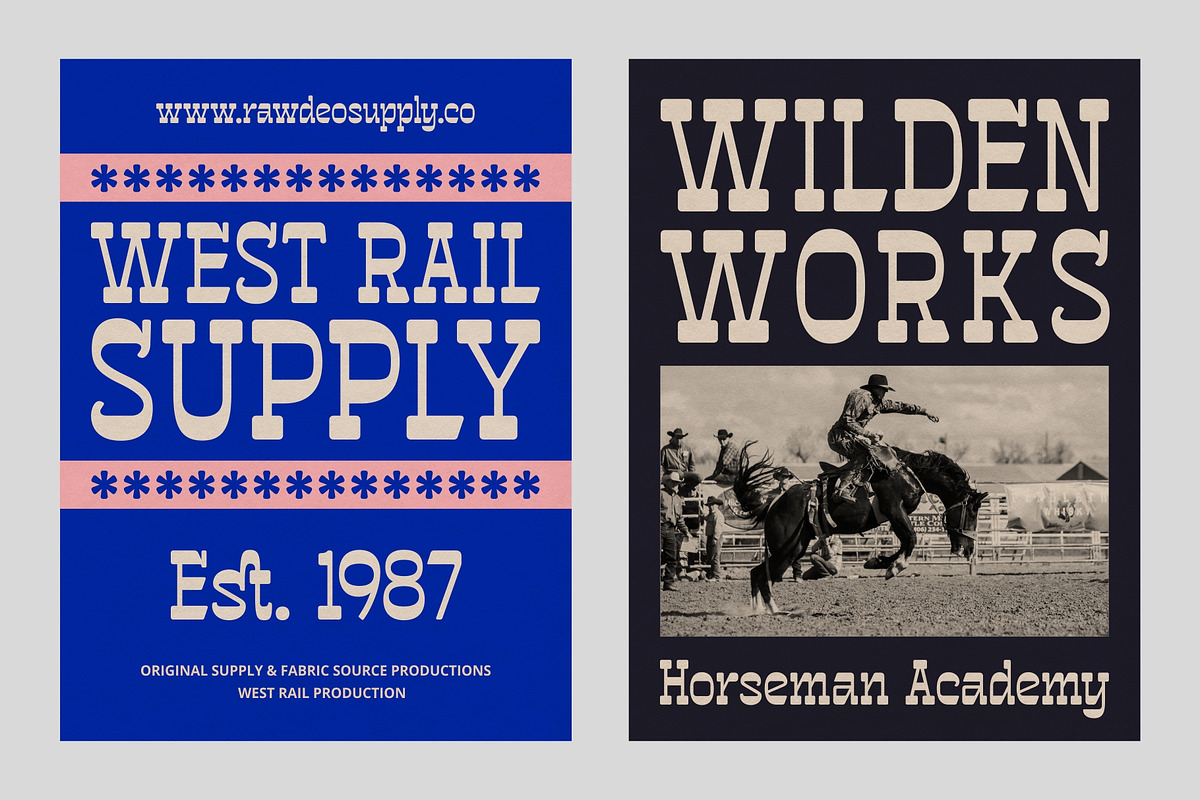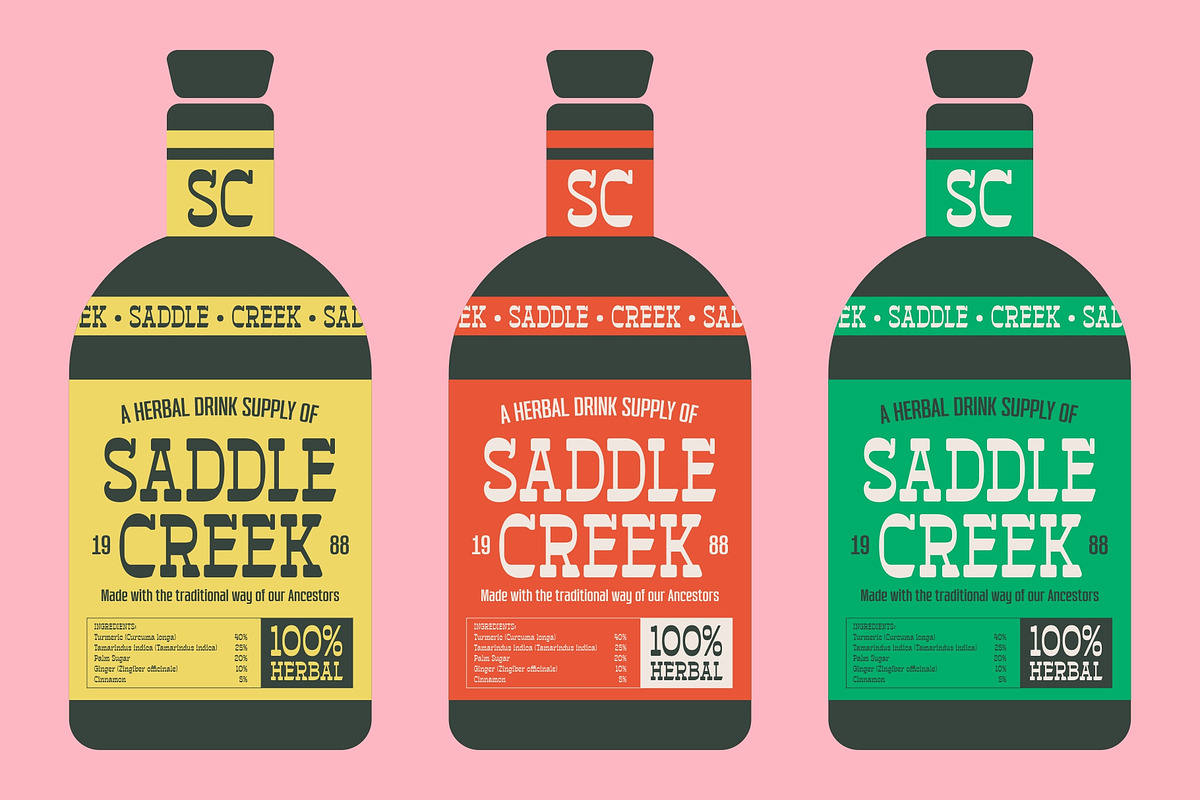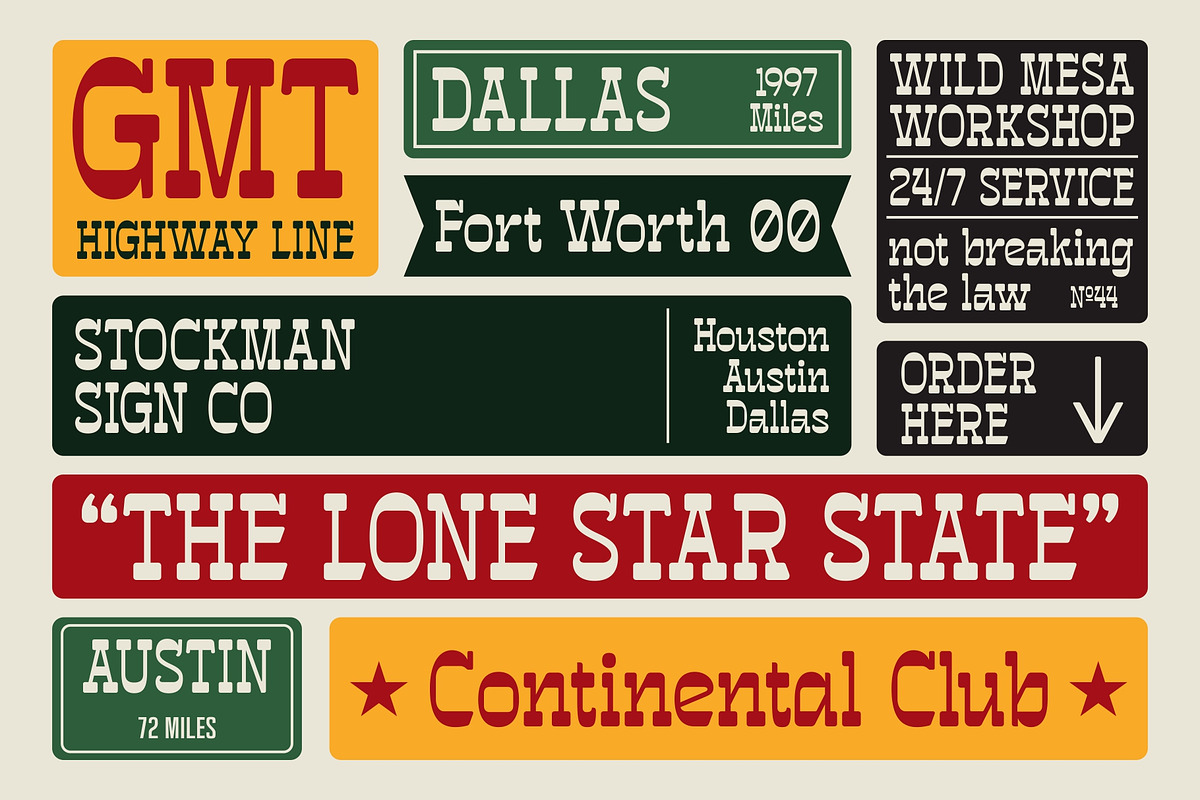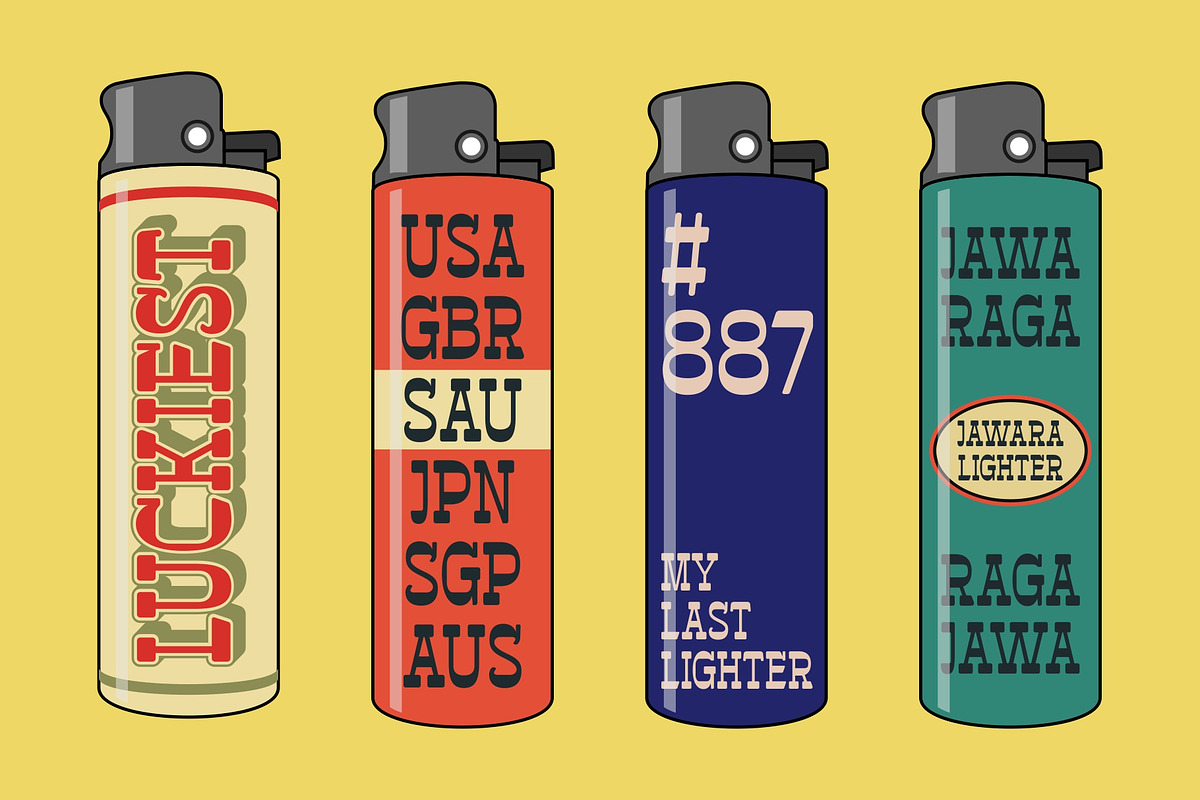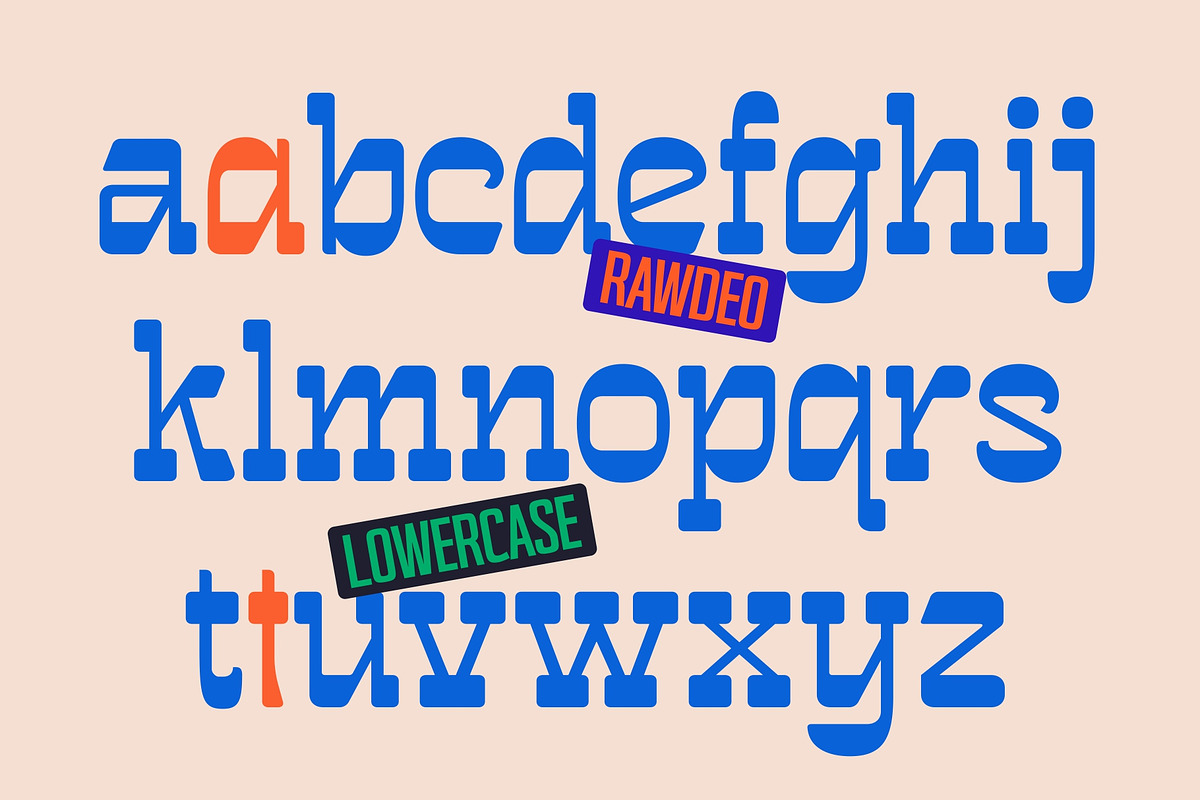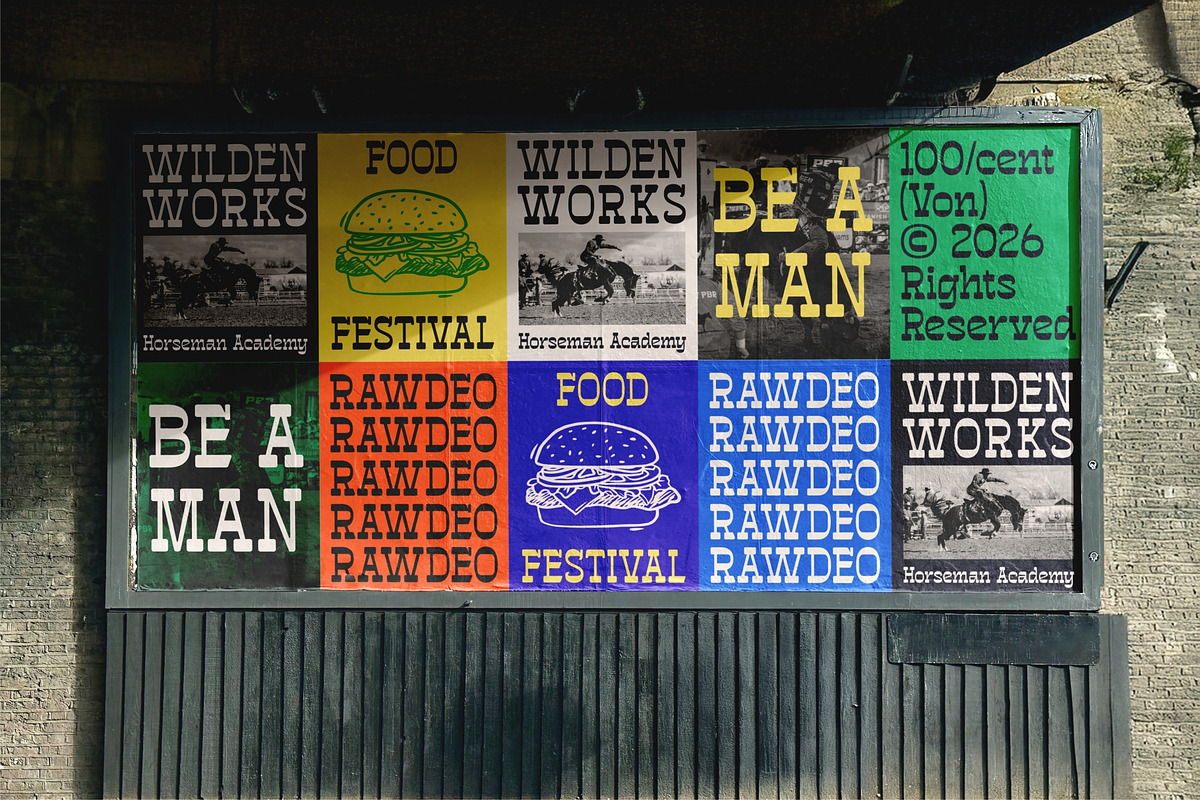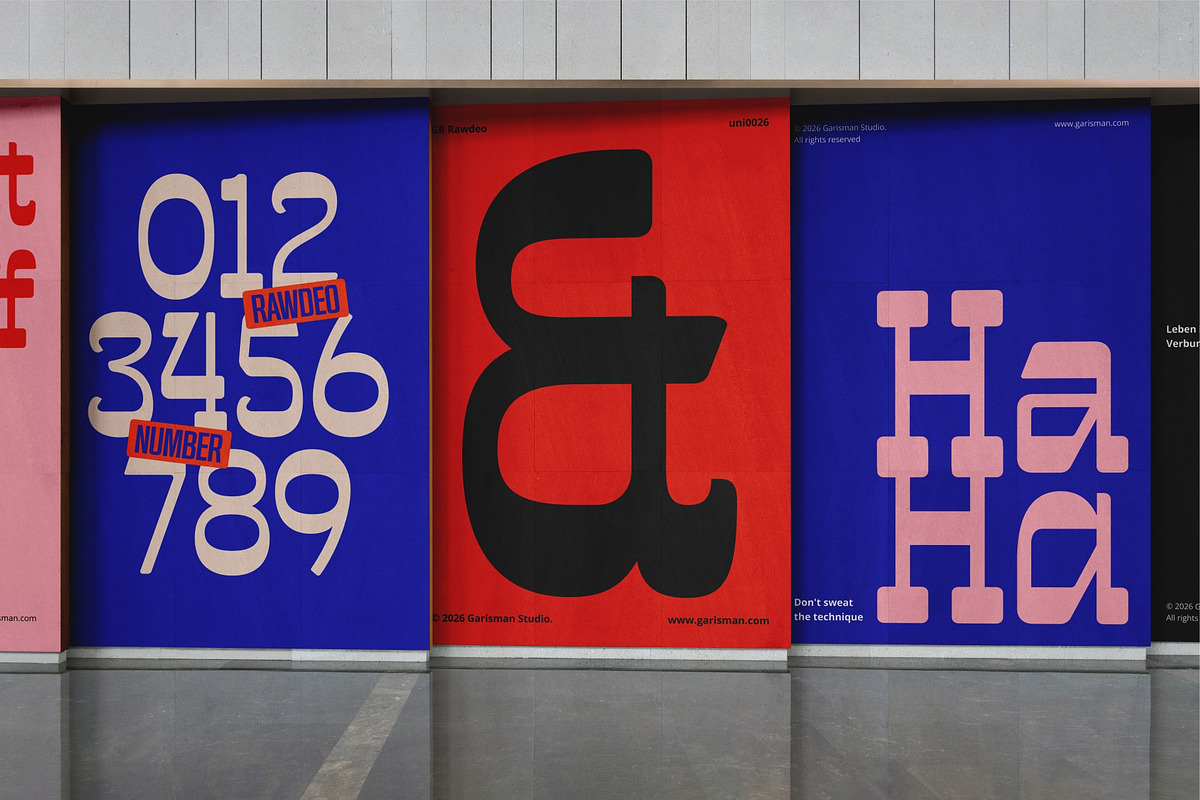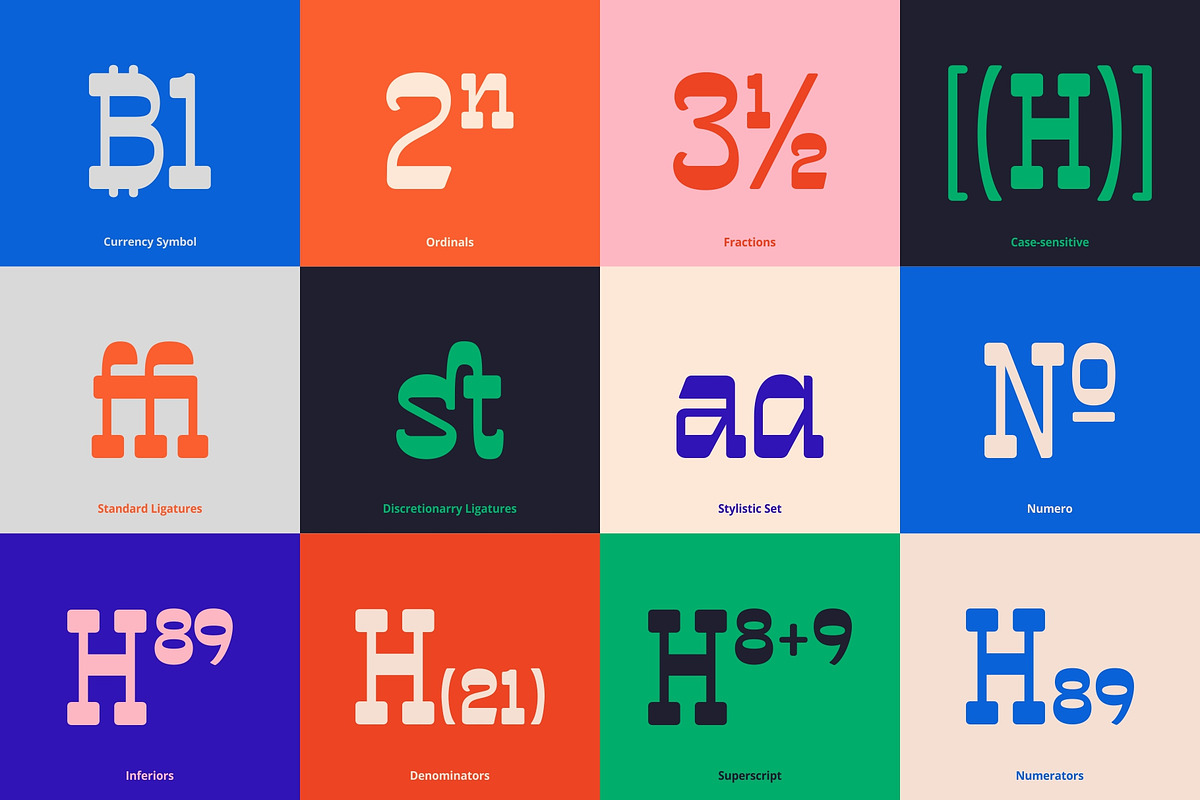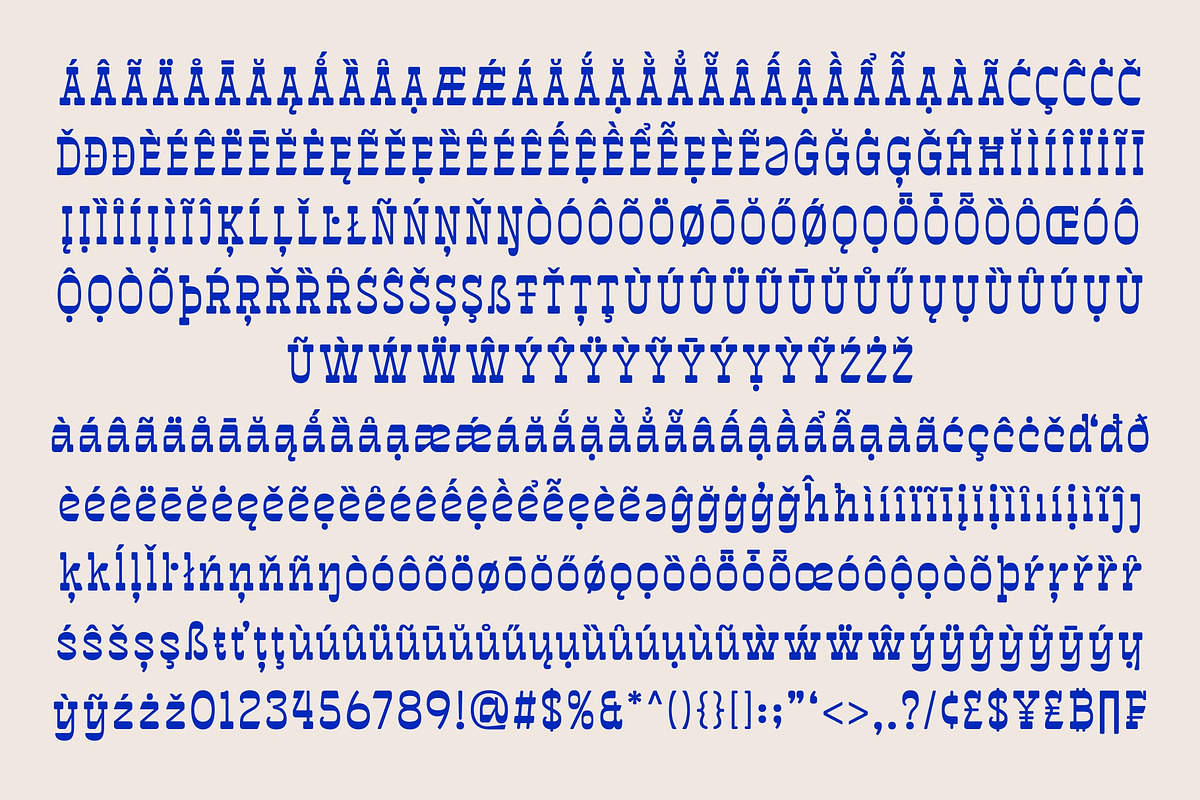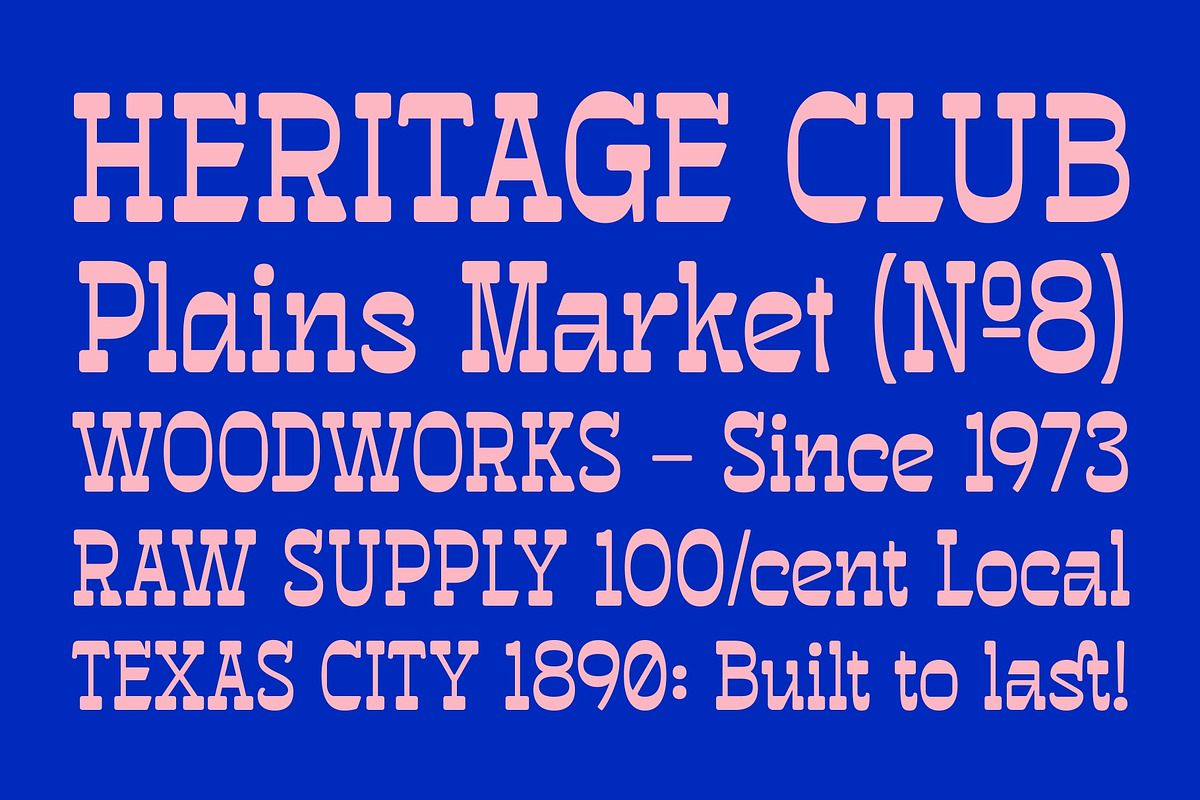
GR Rawdeo - Western Slab Serif
Meet GR Rawdeo, a modern Western slab serif inspired by frontier-era wood type and old Texas signage.
With its strong contrast and bold slab structure, this typeface is perfect for:
- Vintage-style logos
- Rodeo and bar branding
- Old-west posters
- Film titles and thumbnails
- Packaging with a frontier aesthetic
GR Rawdeo blends 19th-century spirit with modern precision, making it ideal for designers who want a classic Western tone without sacrificing clarity.
OpenType features include denominators, numerators, fractions, ordinals, stylistic alternates, localized forms, slashed zero, and both standard and discretionary ligatures—giving you control over expressive headline compositions.